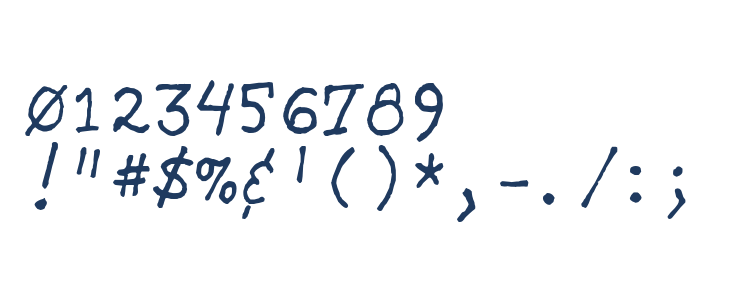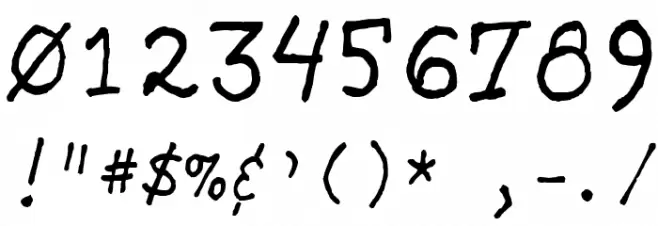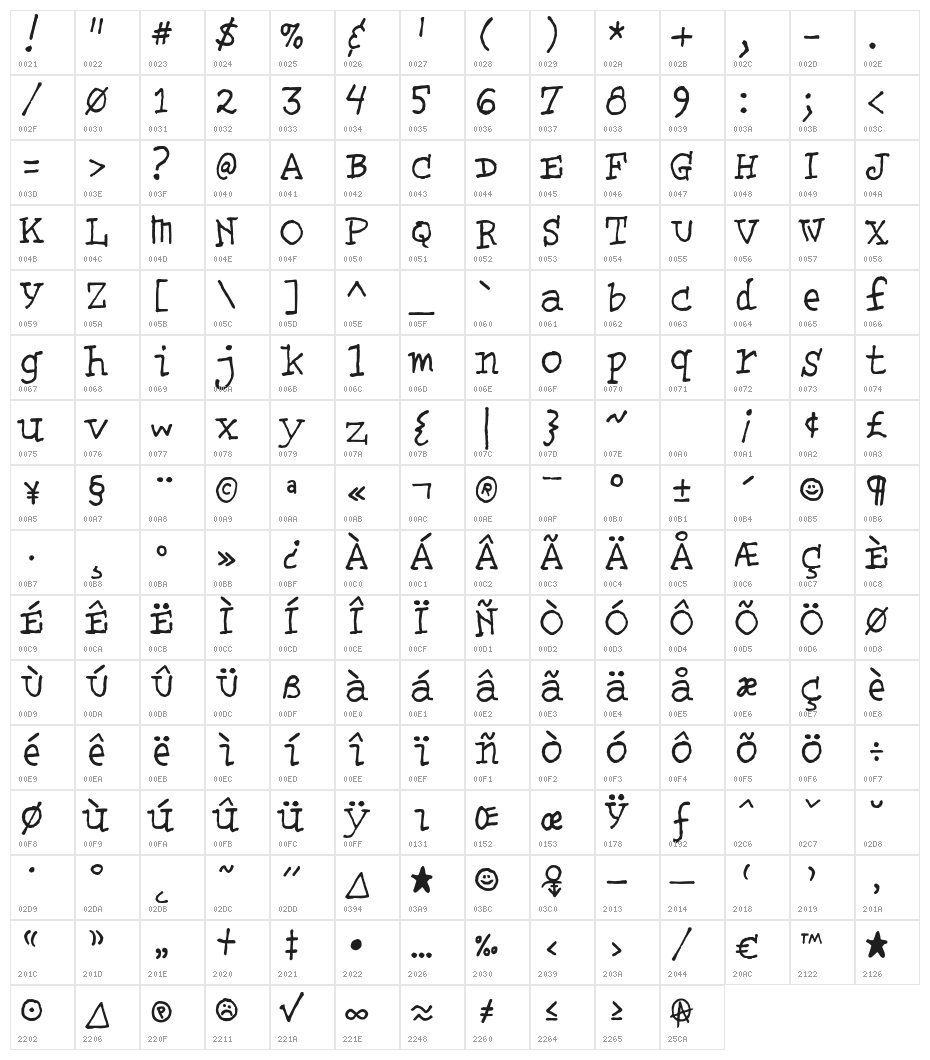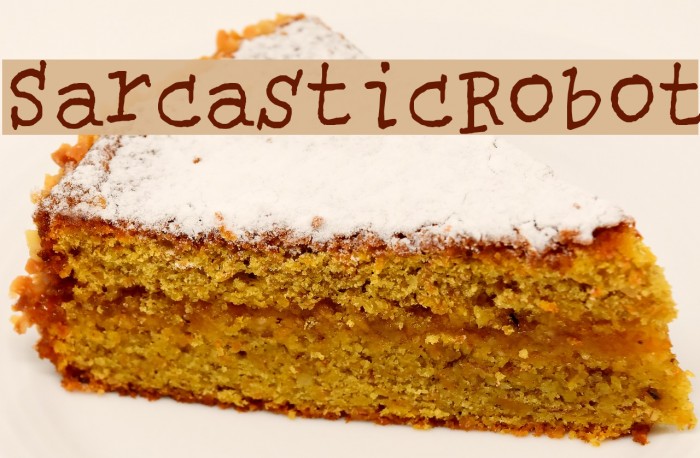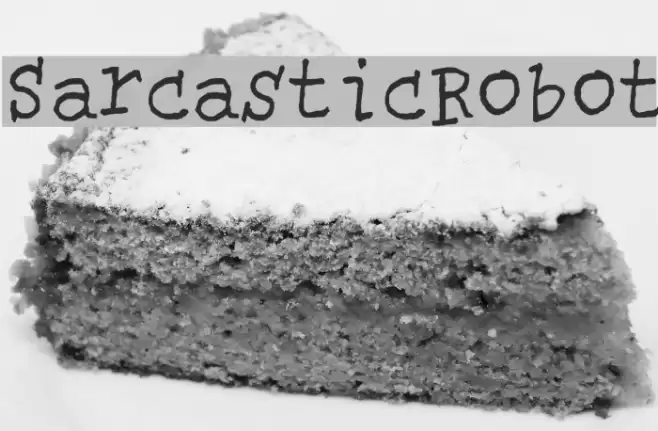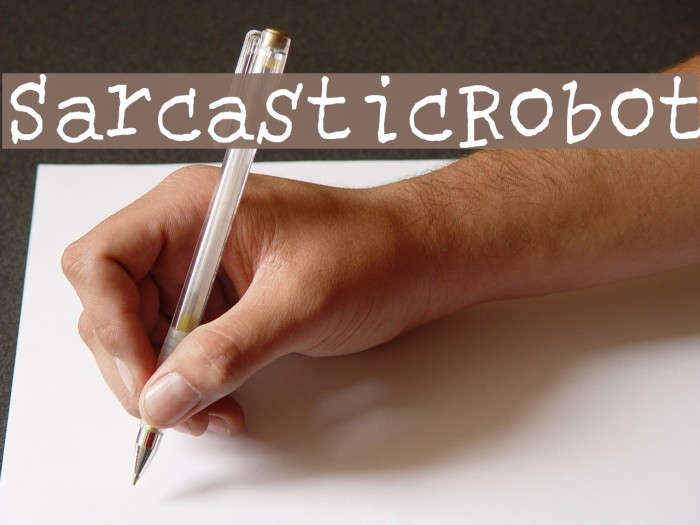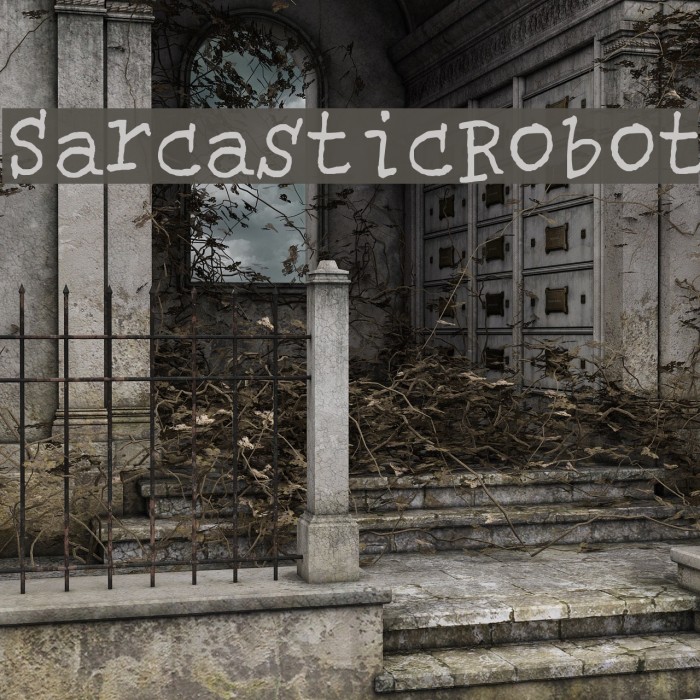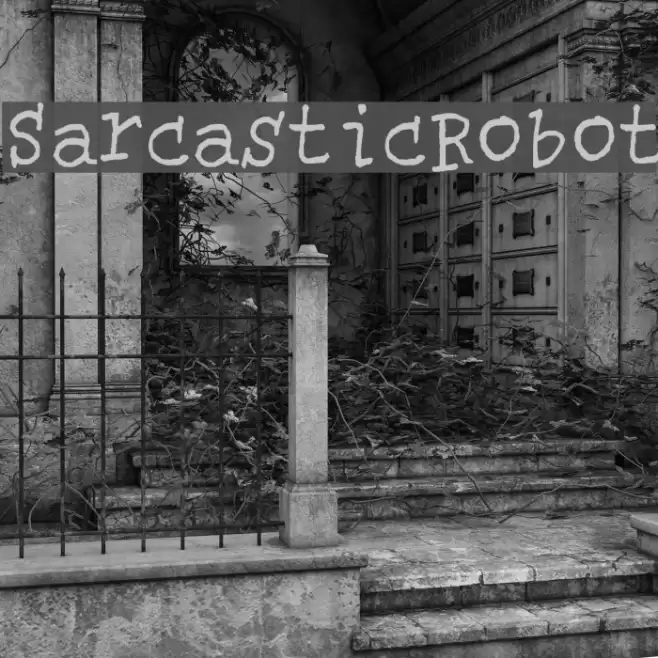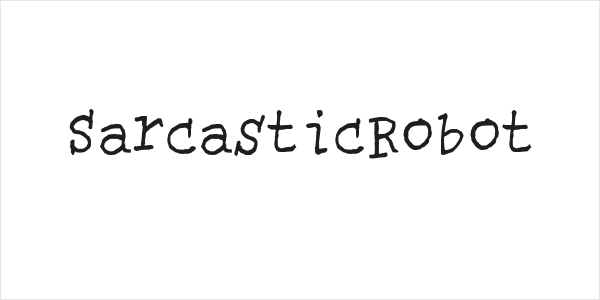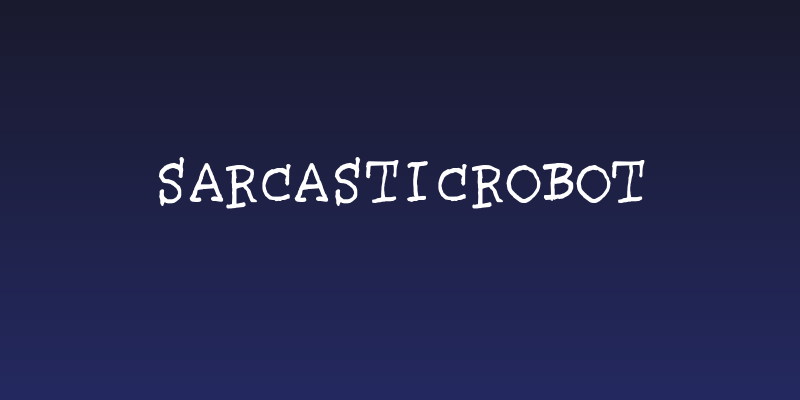
SarcasticRobot Font
SarcasticRobot Description
This font features a playful and slightly irregular handwritten style, characterized by its quirky and whimsical appearance. The letters have a casual, informal feel with uneven strokes and varying thickness, giving it a lively and dynamic look. The uppercase letters are bold and prominent, while the lowercase letters maintain a consistent style with a slightly smaller size. Numbers and special characters follow the same playful design, making the font versatile for creative projects. Its unique charm makes it suitable for designs that aim to convey a sense of fun and creativity.
| Proposed Projects | Ideal for greeting cards, children's books, playful branding, and creative posters. |